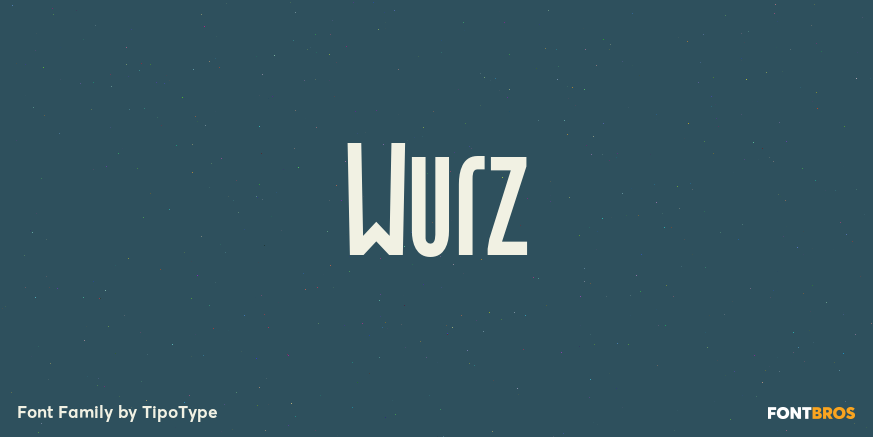
HomeFont BrosSpecial EffectWurz Special Effect Wurz FacebookXPinterestWhatsApp 1 of 1 About Wurz Wurz is a family with 32 variants. Designed for labels, titles and posters. And to play with typography in large sizes! Is a grotesque geometric. Designed on a modular basis.  DOWNLOAD NOW People also explored Shake Glike Font Cocktail Shaker Belleson Script Font Serotonin Font Rough Draft Supermarkt Font Cherry Blossom Font Dave Gibbons Lower Winter Blaster Font 224 0 TagsWurzWurz Font Previous articleMustangNext articleDekatron LEAVE A REPLY Cancel reply Comment: Please enter your comment! Name:* Please enter your name here Email:* You have entered an incorrect email address! Please enter your email address here Website: Save my name, email, and website in this browser for the next time I comment. Personal Use Free Bamboomoe Personal Use Free Read more about this font Rolling Door Personal Use Free Read more about this font Multicolore Personal Use Free Read more about this font Vuldo Personal Use Free Read more about this font BLOG Free Fonts Risk: Why Free Fonts Can Be Dangerous for Designers Free Fonts Risk: Why Free Fonts Can Be Dangerous for Designers Using free fonts is a common practice in web and graphic design. However, the... Top 7 Google Fonts Alternatives for Faster and Privacy-Friendly Web Design (2025) How to Install and Use Fonts on Windows, macOS, and Web Projects Transform Your Website: Elevate Your Typography with 7 Best Web Font Generators